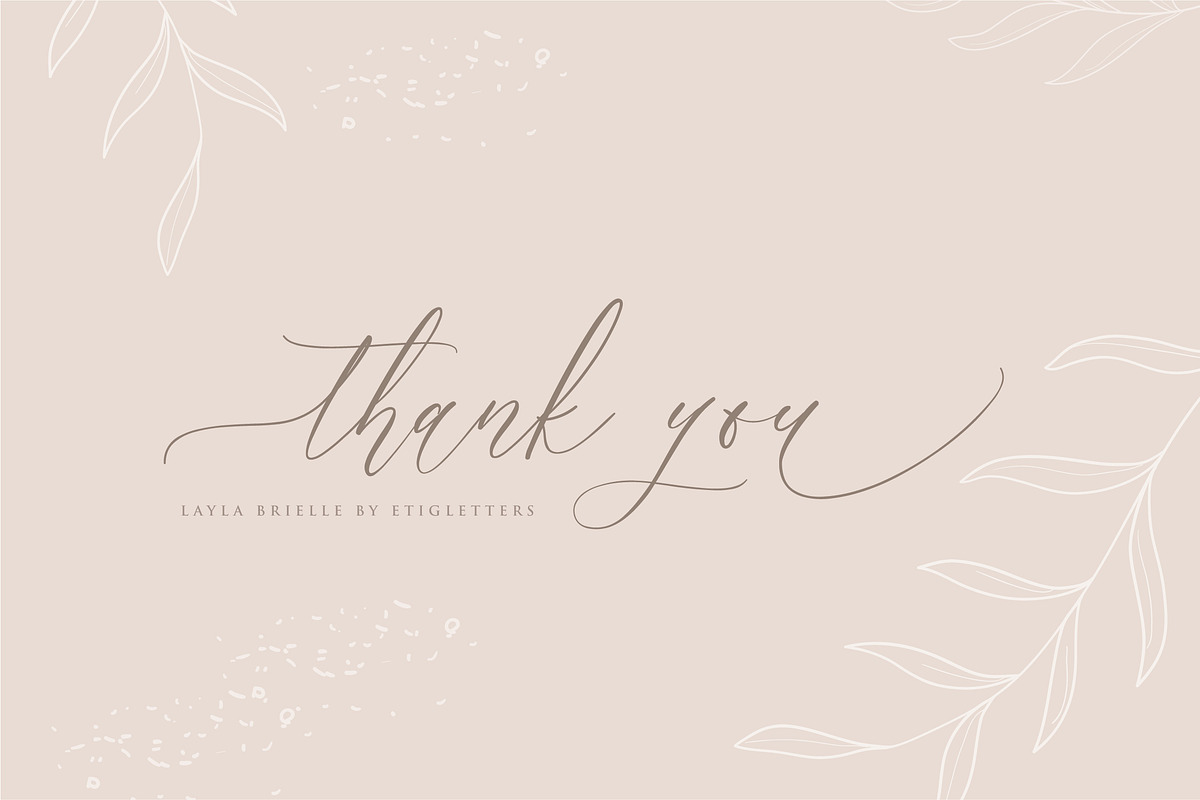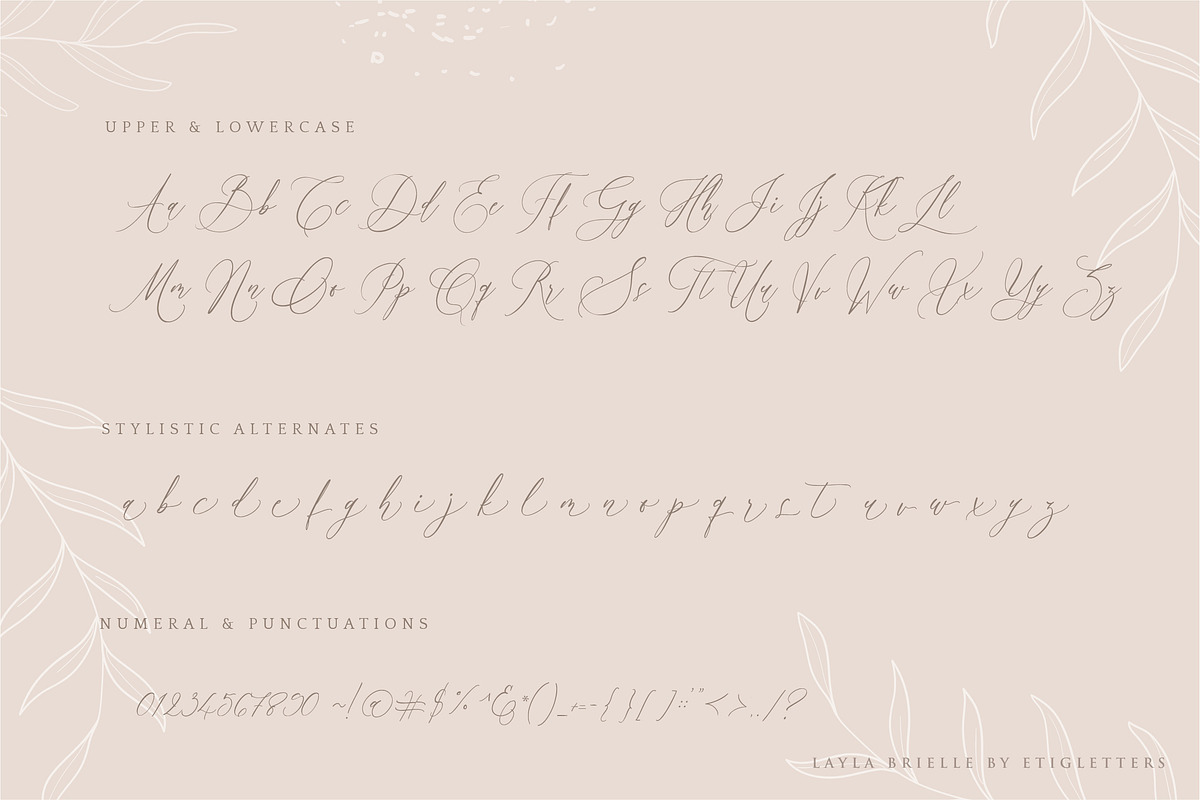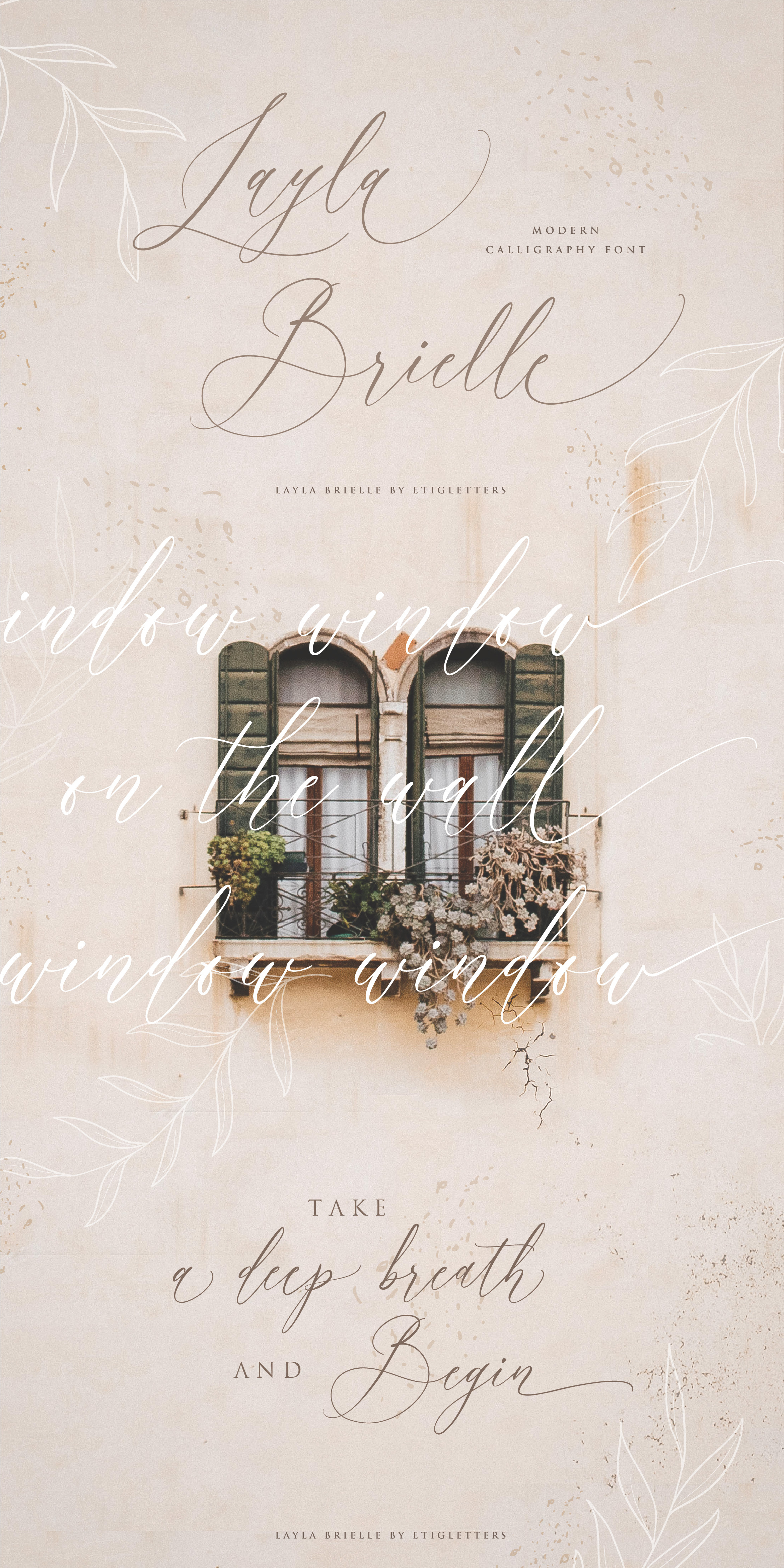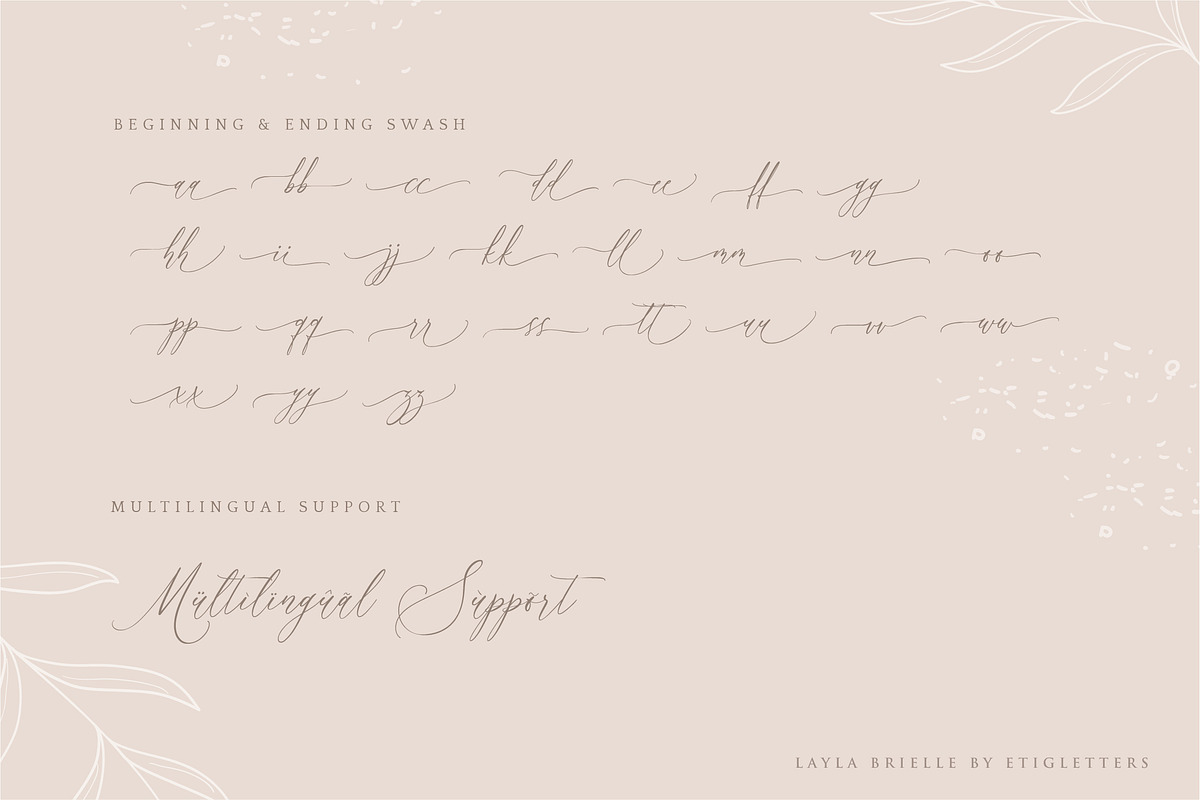
Layla Brielle Font
Introducing Layla Brielle, is a lovely elegant calligraphy font. Ideal for elegant logos, wedding stationery, websites, personal branding and any other projects requiring a handwritten and luxurious touch.
Layla Brielle includes full set of beautiful uppercase and lowercase letters, numerals, and including ligatures. All lowercase letters include beginning and ending swashes with realistic handwritten style. In order to use the swashes on Opentype: Initial form (titl) for beginning swash Swash (swsh) for ending swash. There are Stylistic Sets 01 and Stylistic Sets 02 will make each letter different. Layla Brielle is also support multilingual and already PUA Encoded!